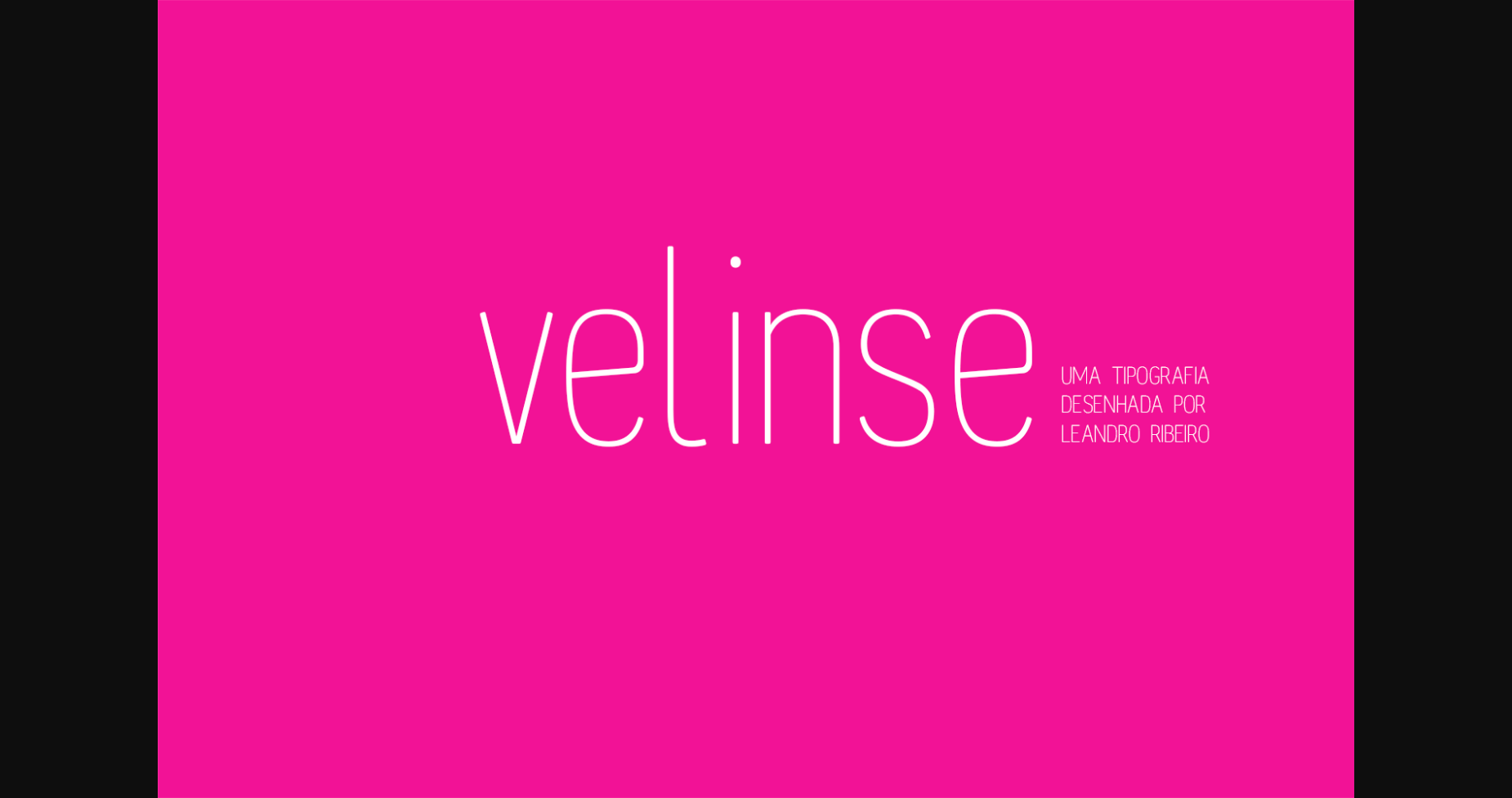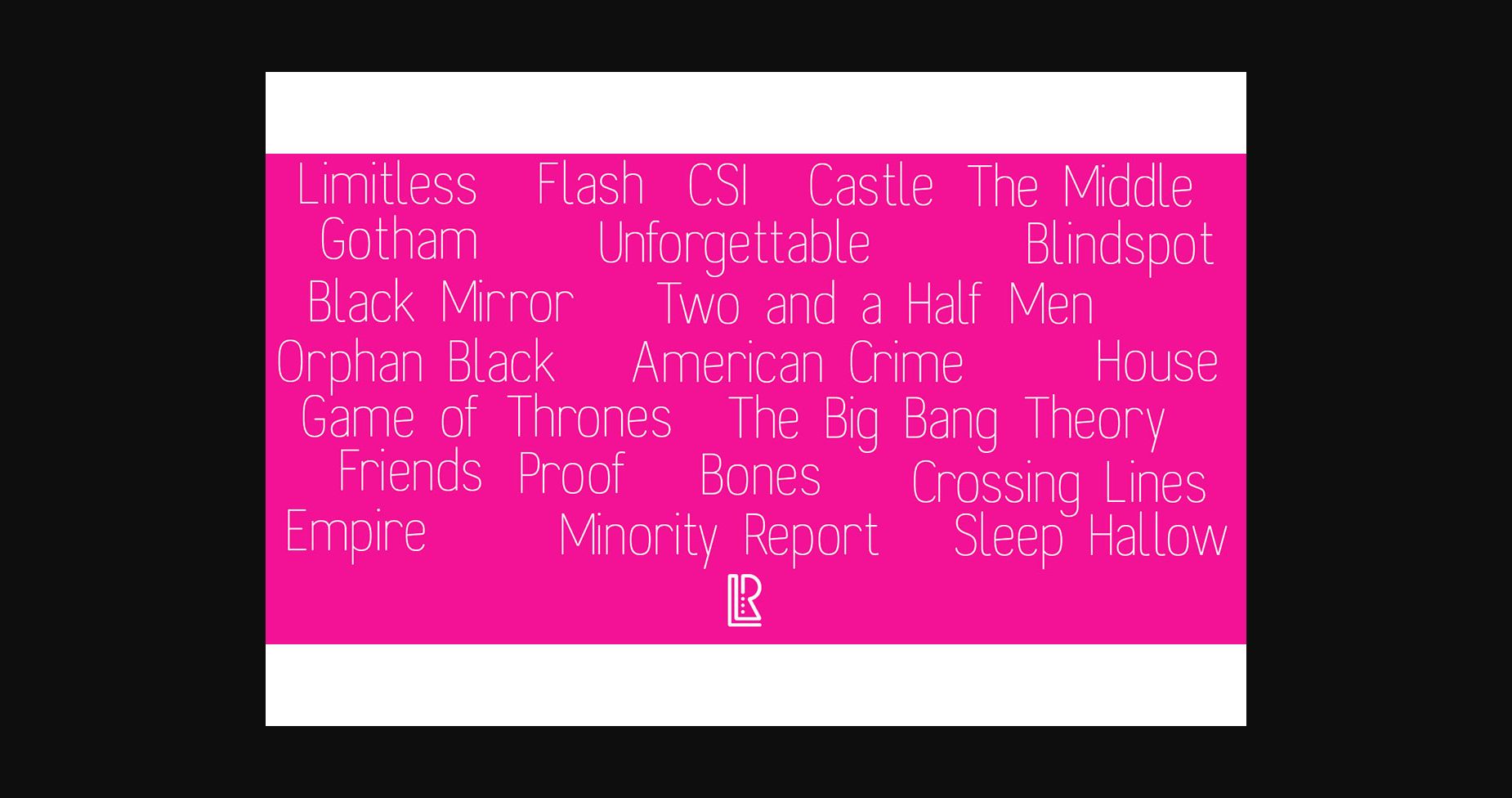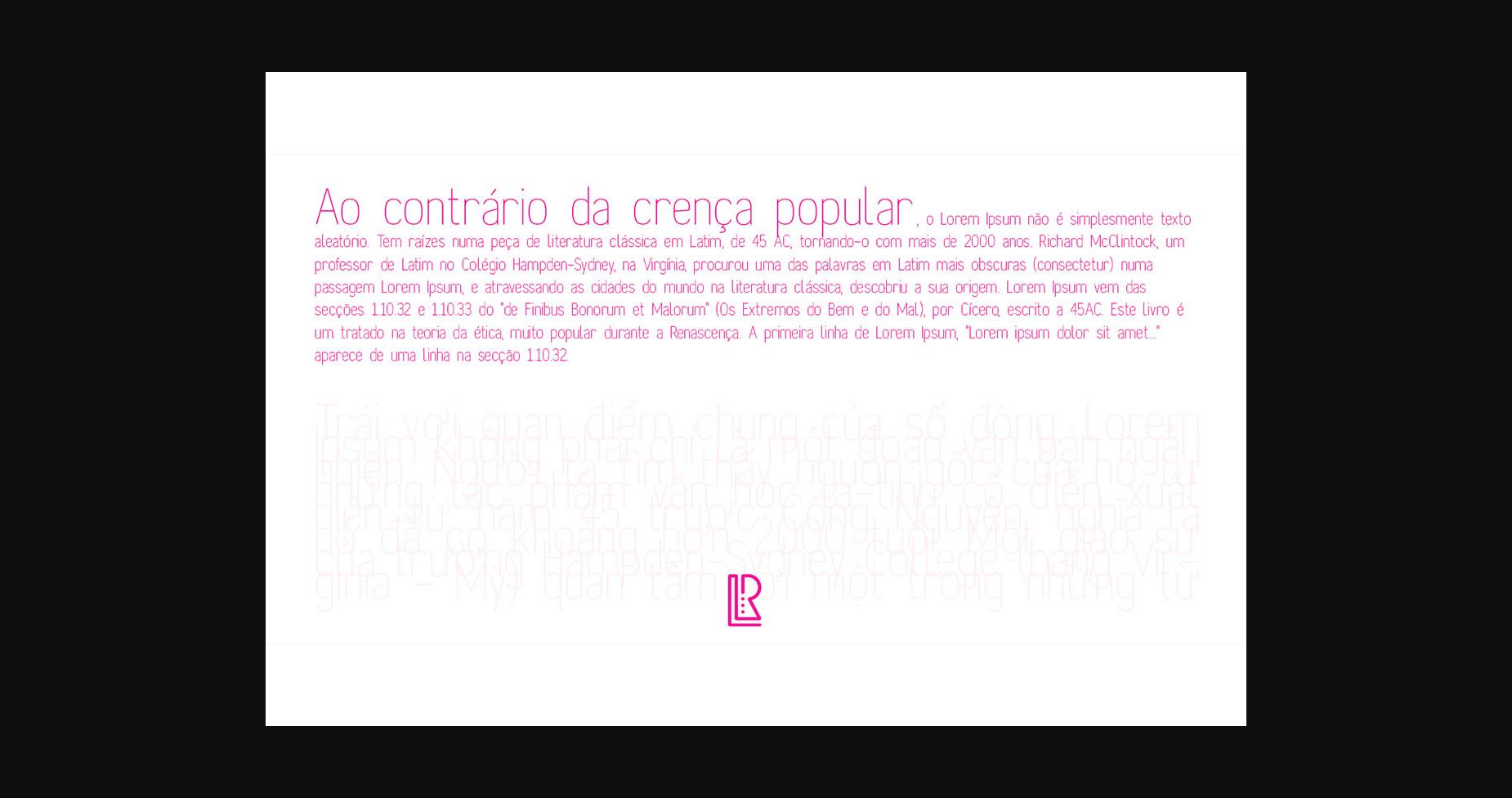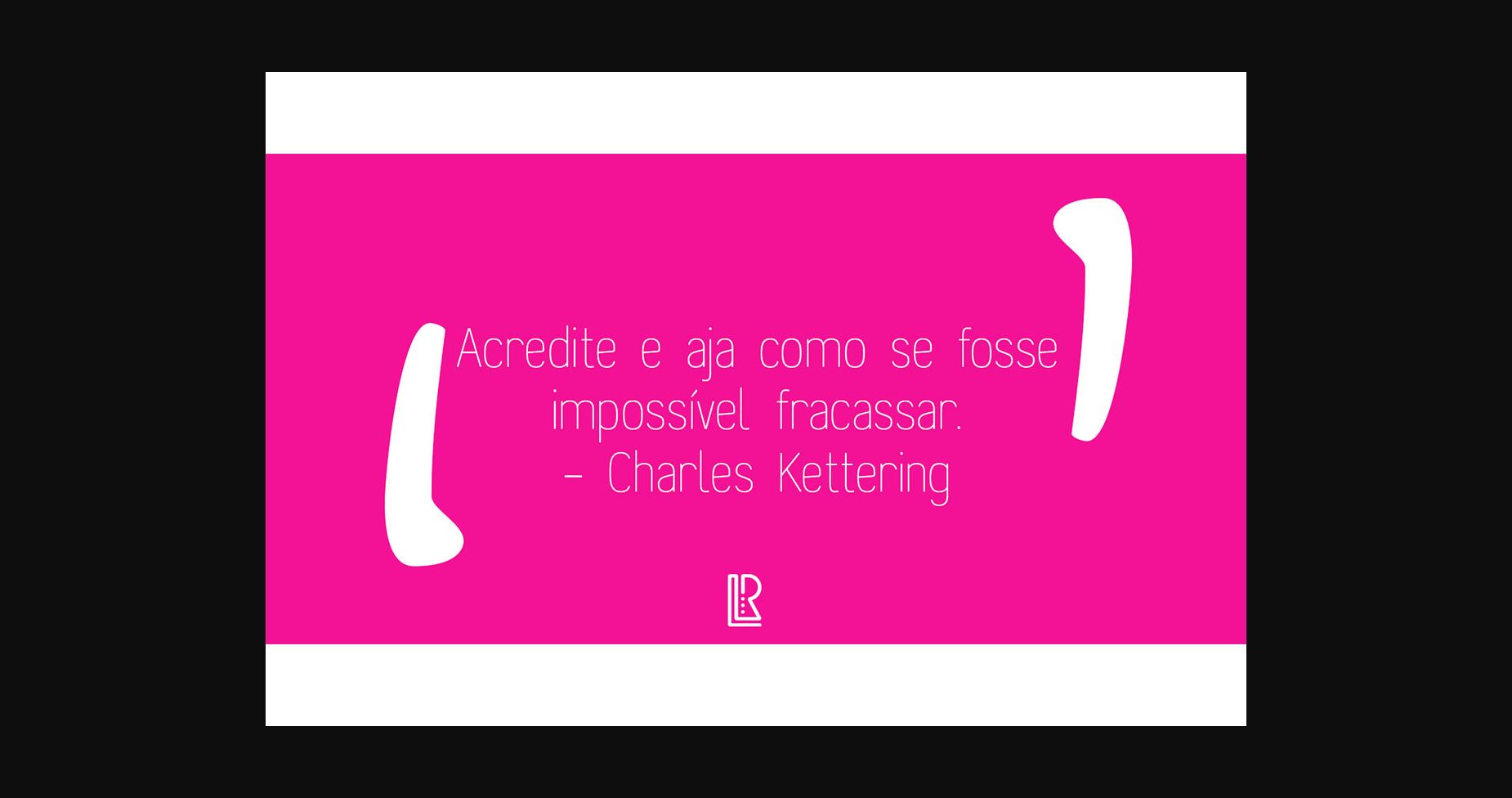
Velinse Font
About Velinse Font
Velinse is a cool and adaptable sans serif font. Whatever the topic, this font will be a wonderful asset to your font library, as it has the potential to enhance any creation.